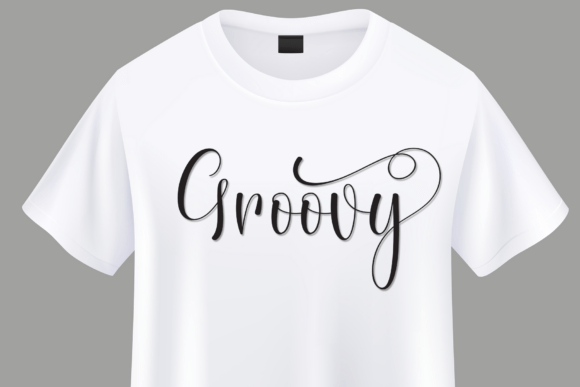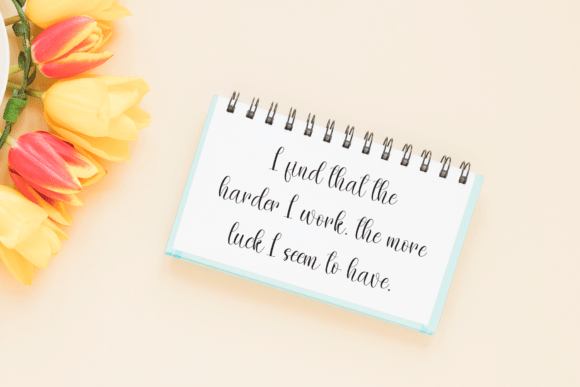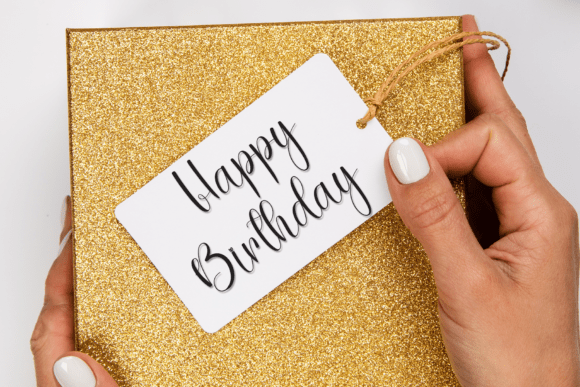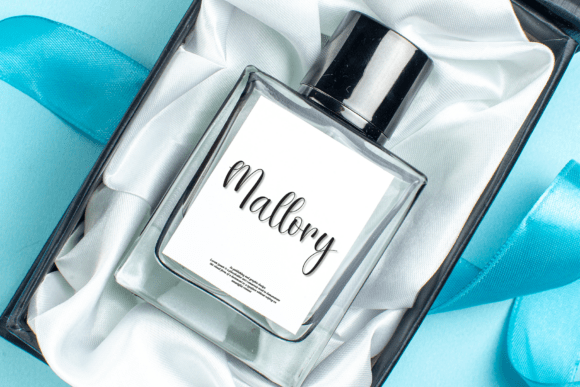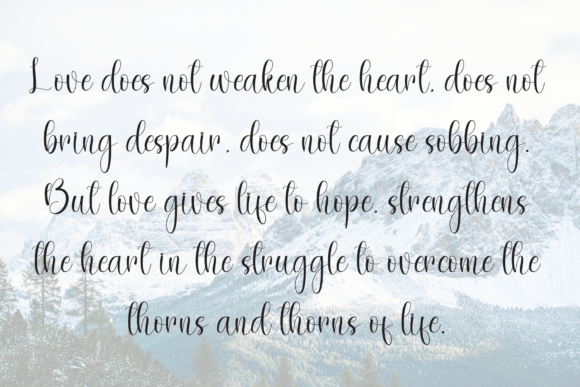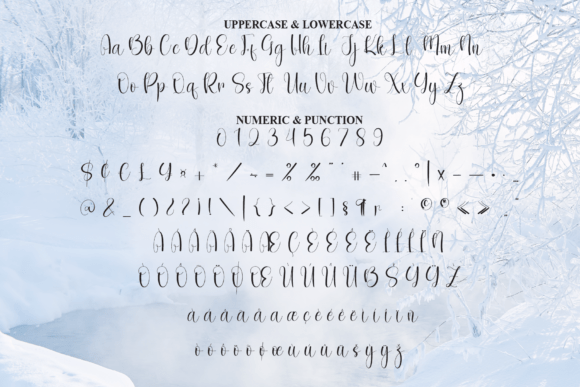
Frosty Winter Font: A Charming Handwritten Masterpiece
Introducing an exquisite masterpiece of penmanship, drenched in alluring charm and kind-hearted warmth; presenting the unrivaled handwritten showpiece font – Frosty Winter Font. This stunning font is designed to add a touch of elegance and whimsy to any design project, making it a perfect contender to embellish your wedding invites, greeting cards, or any creative design yearning for that unique touch of happiness.
The Unparalleled Elegance of Frosty Winter Font
The unparalleled elegance of Frosty Winter Font is steeped in enchanting charisma and whimsical joy. Each letter is carefully crafted to exude a sense of warmth and friendliness, making it an ideal choice for designers and crafters looking to add a personal touch to their projects. Whether you’re creating a wedding invitation, a greeting card, or a social media graphic, Frosty Winter Font is sure to make your design stand out from the crowd.
A Perfect Font for Creative Designs
Frosty Winter Font is more than just a font – it’s a tool that breathes life into any ordinary project, converting it into a striking display of artistic genius. Its unique and playful spirit makes it perfect for a wide range of design applications, from romantic wedding invitations to fun and colorful greeting cards. With Frosty Winter Font, you can add a touch of personality and whimsy to any design, making it a must-have for designers and crafters looking to create something truly special.
Why Choose Frosty Winter Font?
So, why choose Frosty Winter Font over other fonts? Here are just a few reasons why this font stands out from the rest:
- Unique and Playful Spirit: Frosty Winter Font has a unique and playful spirit that is sure to add a touch of personality to any design.
- Elegant and Whimsical: The font’s elegant and whimsical design makes it perfect for a wide range of design applications, from romantic wedding invitations to fun and colorful greeting cards.
- Handwritten with Love: Frosty Winter Font is a handwritten font, crafted with love and care to ensure that each letter is unique and full of character.
- Easy to Read: Despite its elegant and whimsical design, Frosty Winter Font is easy to read, making it perfect for body text and other applications where readability is key.
- Pair it with Other Fonts: Frosty Winter Font pairs well with other fonts, such as sans-serif fonts and script fonts. Experiment with different font combinations to find the perfect look for your design.
- Use it for Headings: Frosty Winter Font is perfect for headings and titles, where its elegant and whimsical design can really shine.
- Add a Personal Touch: Use Frosty Winter Font to add a personal touch to your designs, such as a handwritten note or a custom illustration.
In conclusion, Frosty Winter Font is a truly unique and special font that is sure to add a touch of elegance and whimsy to any design project. Its unparalleled elegance, playful spirit, and handwritten charm make it a must-have for designers and crafters looking to create something truly special. Whether you’re creating a wedding invitation, a greeting card, or a social media graphic, Frosty Winter Font is the perfect choice.